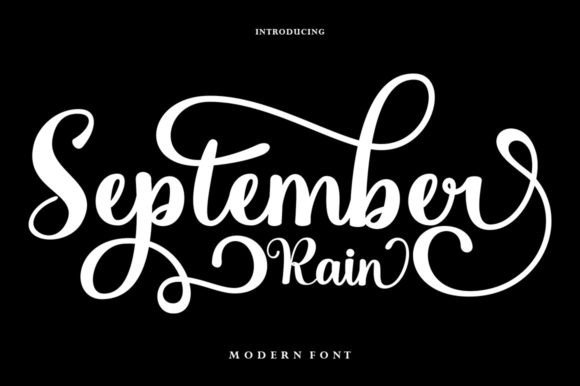
Unleash your creative spirit with September Rain Font, the epitome of elegance and sophistication in the realm of script fonts. Crafted by the visionary minds at StudioRHD, this exquisite font family embodies the essence of luxury and timeless style. Step into a world of refined typography where your designs take center stage and captivate hearts.
Immerse yourself in the beauty of September Rain's flowing strokes, each meticulously crafted to evoke a sense of grace and fluidity. Its elegant touch adds an air of exclusivity to your creations, transforming ordinary text into captivating works of art. Experience the allure of a font that elevates your designs to new heights, leaving a lasting impression on your audience.
With September Rain, you hold the key to unlocking a world of creative possibilities, where your imagination knows no bounds. Whether you're a seasoned designer or just starting your artistic journey, this font is your perfect companion. Its versatility extends to a wide range of projects, from elegant wedding invitations and sophisticated branding designs to enchanting social media posts and eye-catching marketing materials.
Unleash the power of September Rain and watch as your designs blossom into masterpieces. Its timeless style transcends trends, ensuring that your creations remain relevant and captivating for years to come. Embrace the beauty of handwritten elegance and let your projects shine with an aura of sophistication that commands attention.